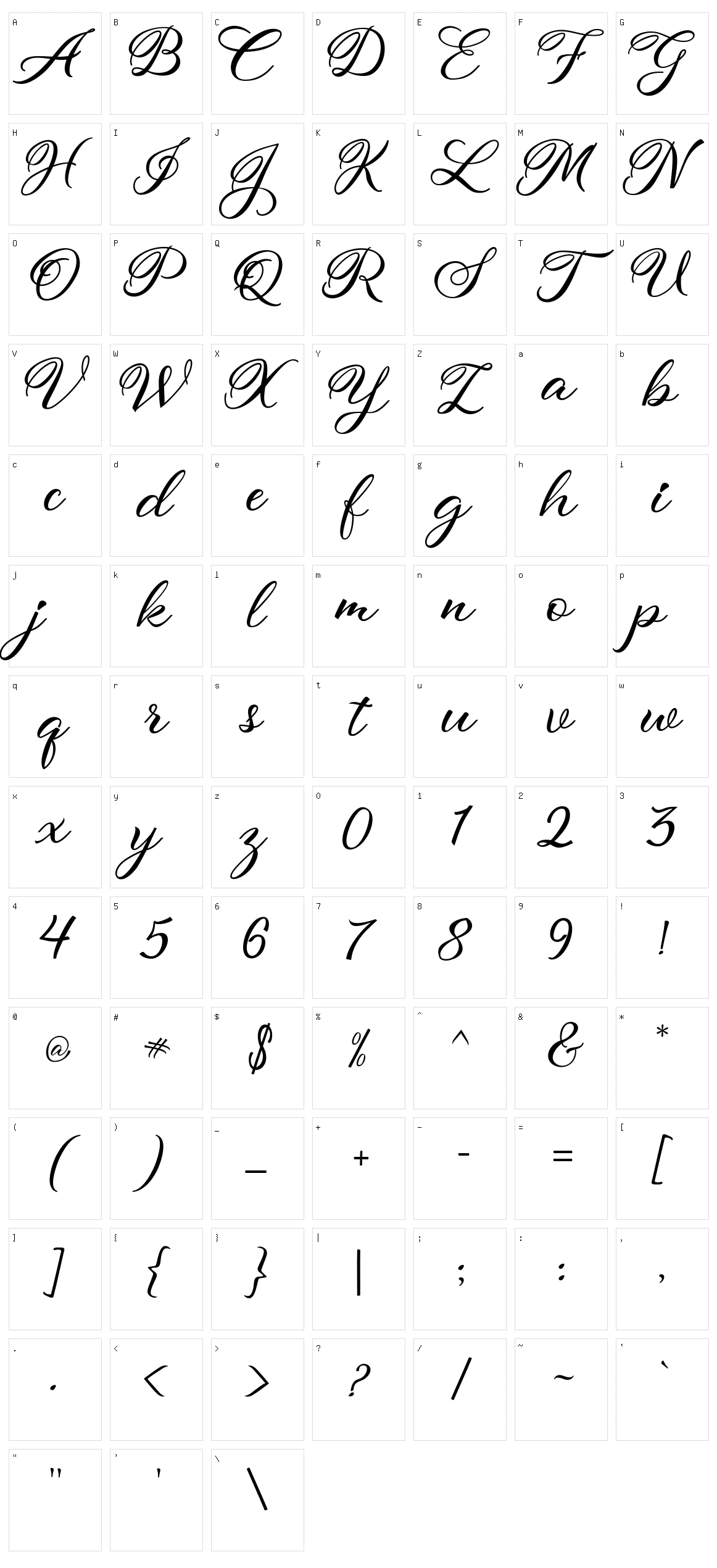
The free font Atmaka is carefully designed by Serin Studio, showcasing a thoughtful balance of creativity and usability and falls under the Script font style. When you download the ZIP file, it contains only 46.81 KB of font files, making it lightweight and quick to download. Please review the license details below to understand permitted usage and distribution rights. If license information is not available, we recommend using this font for personal projects only or contacting the author directly for commercial usage permissions.